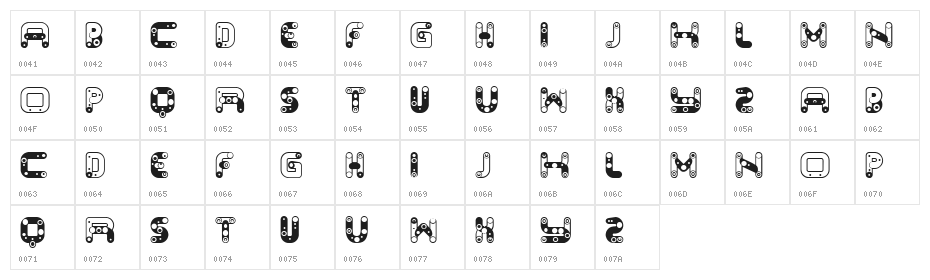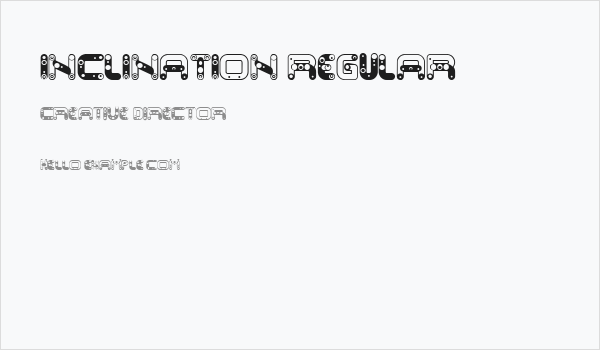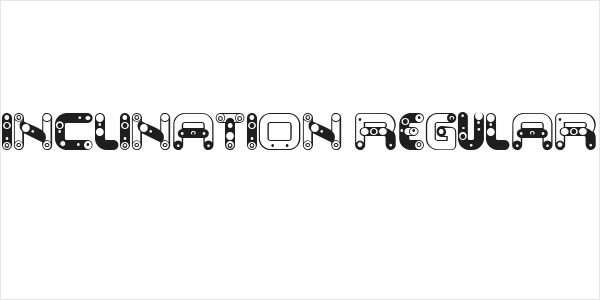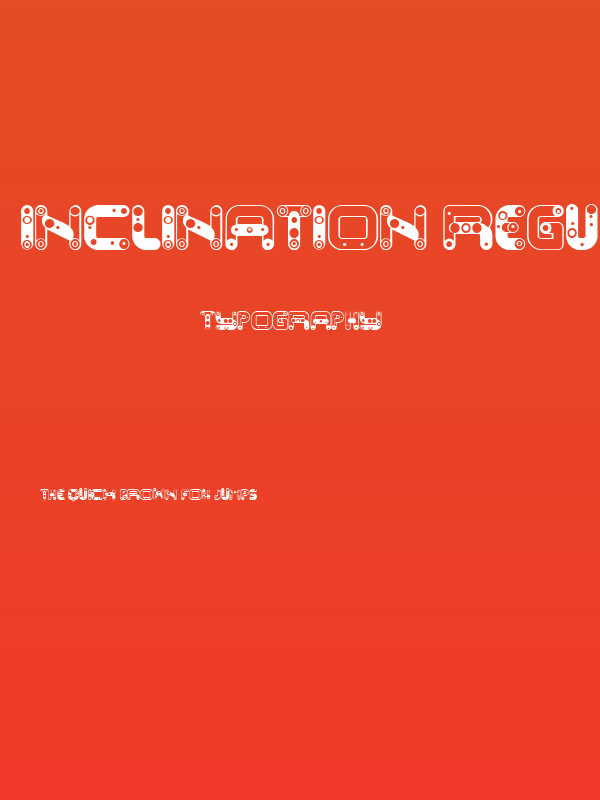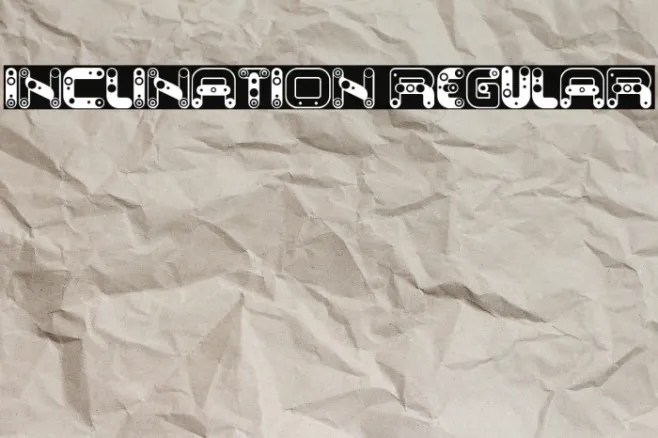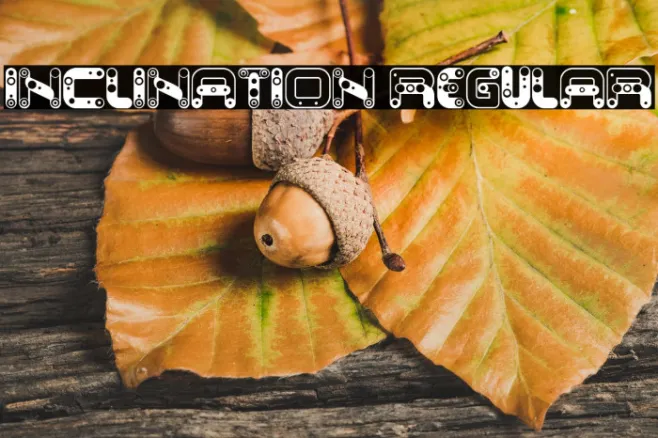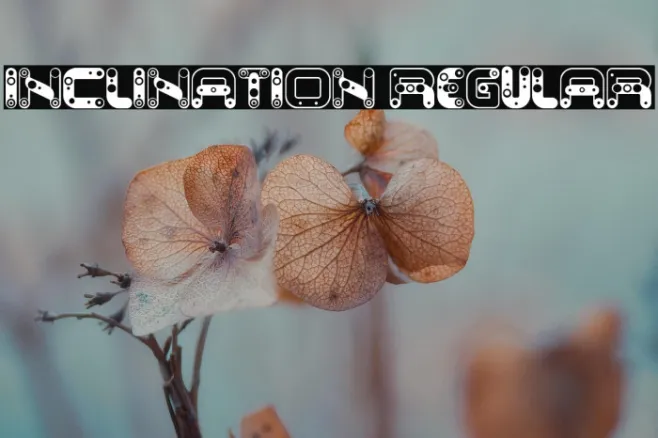
Inclination Regular Font
Inclination Regular Description
This font features a unique and playful design, characterized by its mechanical and industrial aesthetic. Each letter is constructed with a combination of solid and outlined shapes, resembling gears and mechanical parts. The font has a bold presence, with intricate details that give it a distinctive look. The use of circular and rectangular elements within the characters adds to its technical and futuristic feel. This font is particularly eye-catching and stands out due to its unconventional style, making it suitable for creative and innovative design projects.
| Overall Style | Futuristic, Industrial |
| Use Case | Logos, Posters, Headlines |
| Proposed Projects | Ideal for technology-themed posters, video game graphics, industrial design branding, and creative advertising campaigns. |